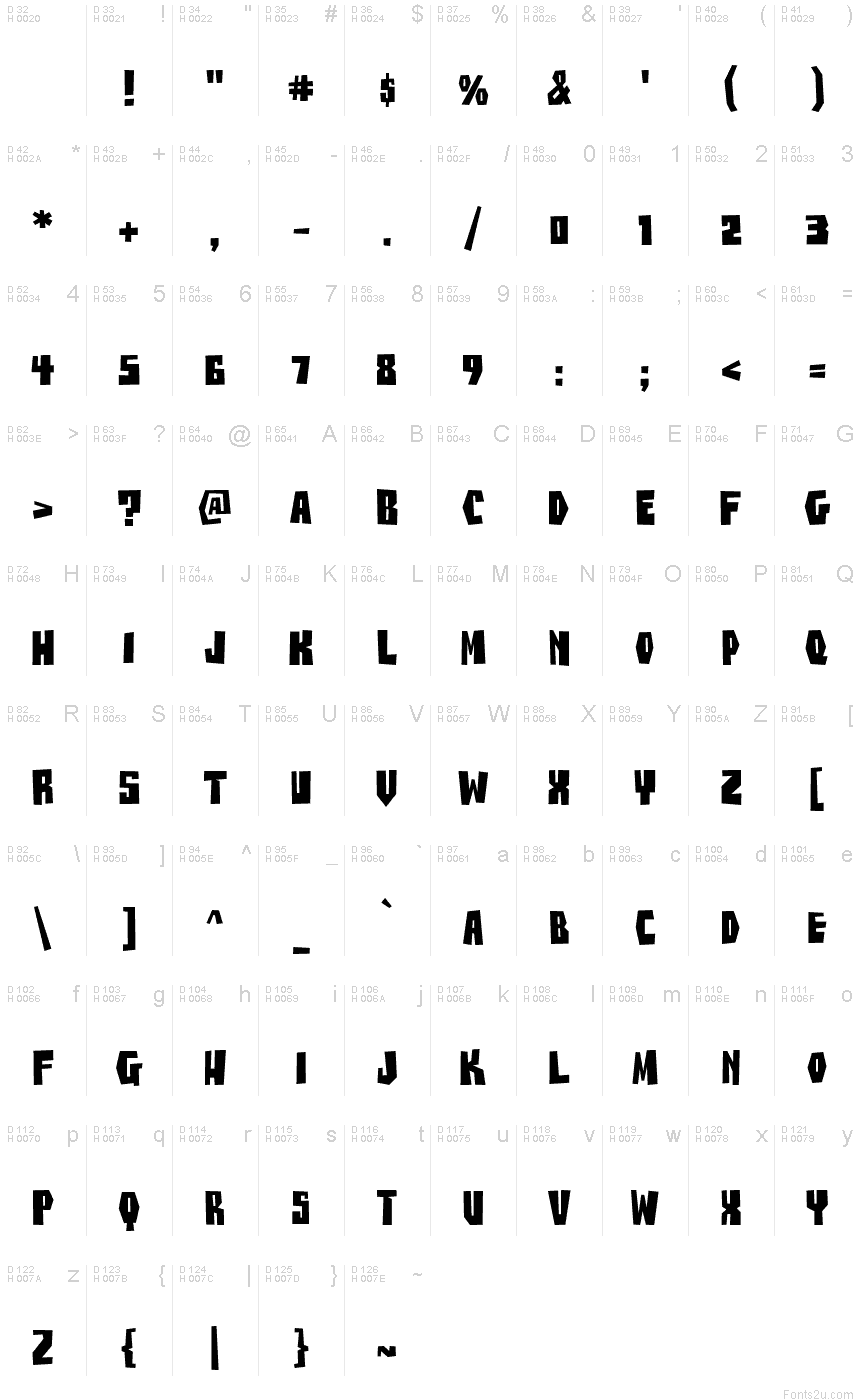
BuzzSaw AOE
BuzzSaw AOE font by Astigmatic (AOETI) is a free comic display font. Its chunky, blade-cut shapes and uneven rhythm give headlines a loud, chopped-up energy, like lettering hacked from black cardboard with a box cutter. Even at a glance, it feels rowdy and mischievous rather than polished.
Using BuzzSaw AOE works beautifully for comic covers, arcade-style game titles, Halloween party art, skate graphics, band merch, stickers, and punchy YouTube thumbnails. Keep it big so the jagged silhouette can do the talking, and pair this free font with a simple sans-serif for captions or small supporting text.